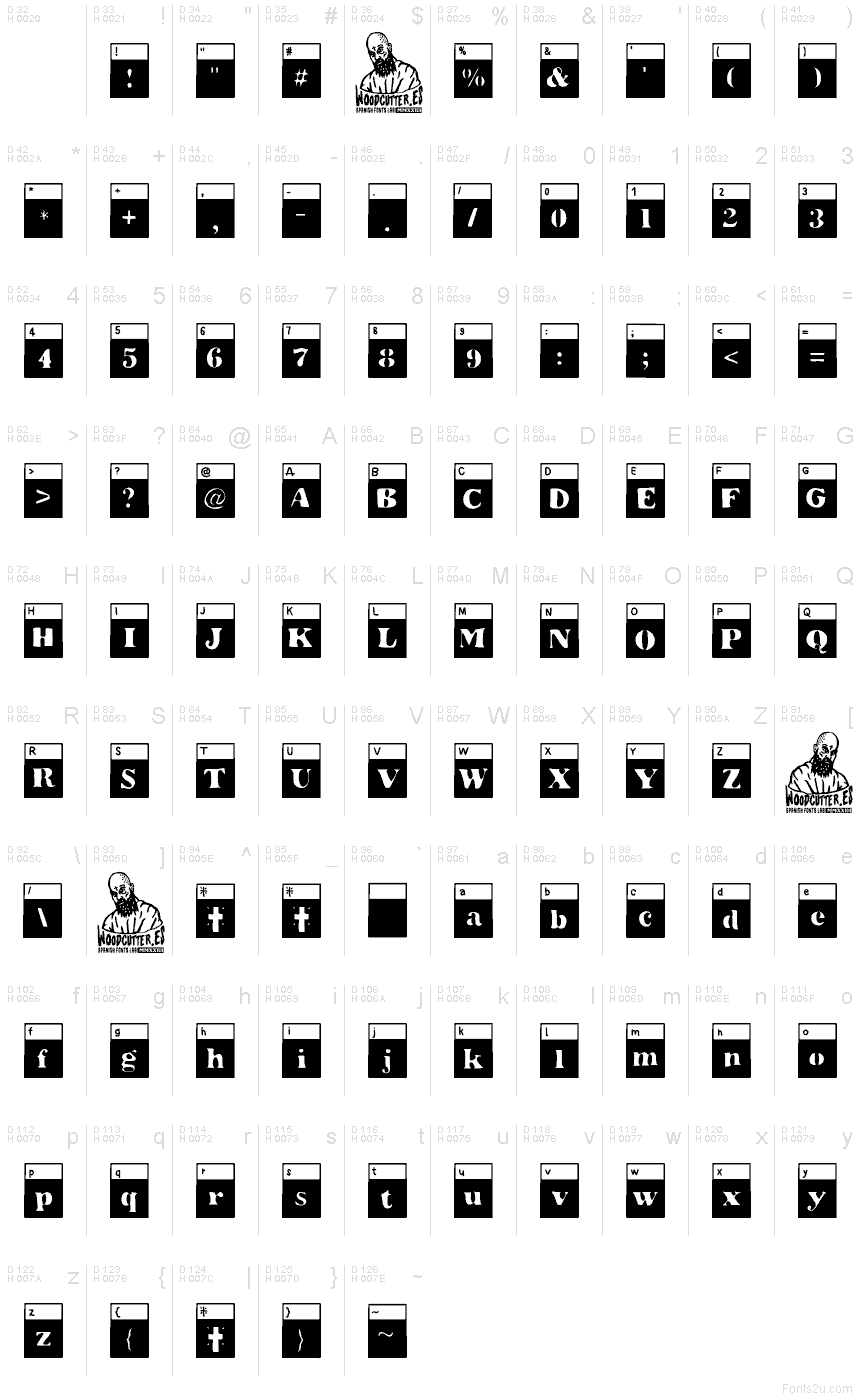
The Special Test
The Special Test font by Woodcutter is a bold display font that stands out with its decorative and negative style. Its unique design elements create an eye-catching appearance, making it ideal for projects that seek to make a visual impact.